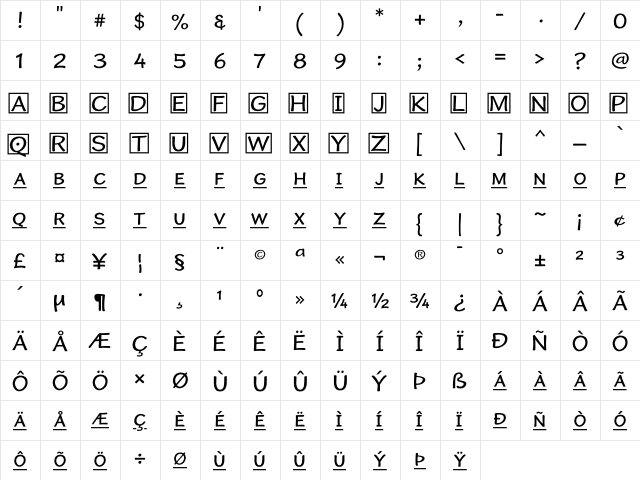
Cordin Freebie Regular
Design Context for Cordin Freebie Typeface
Cordin Freebie is a composed and adaptable typeface that performs quietly and consistently across a wide range of design contexts.